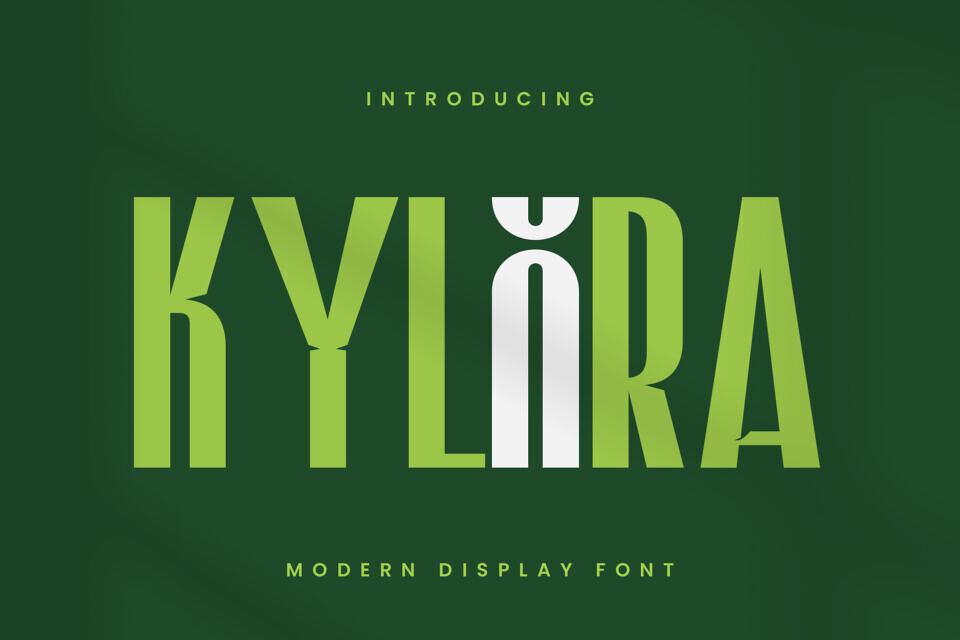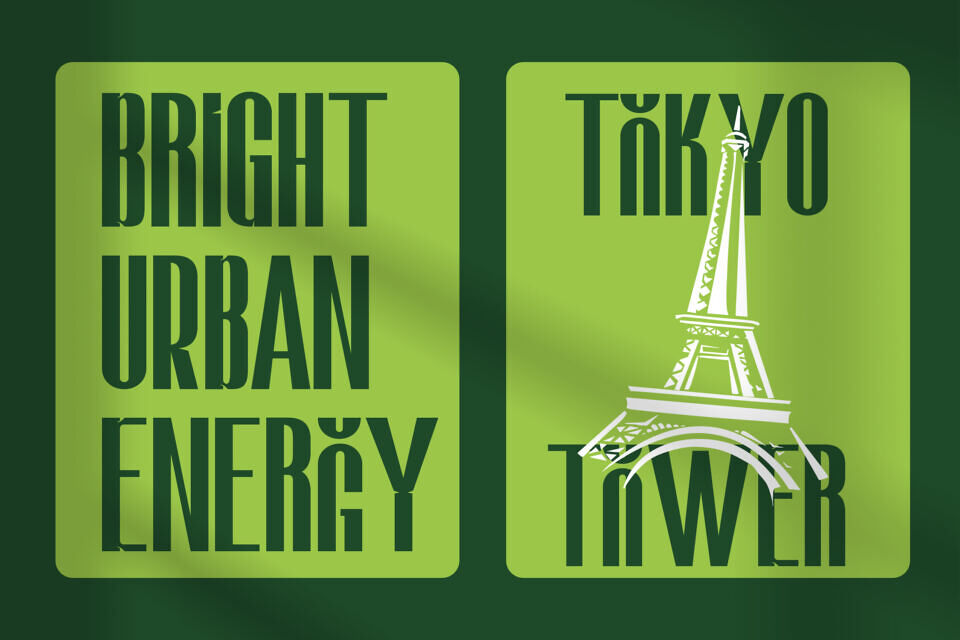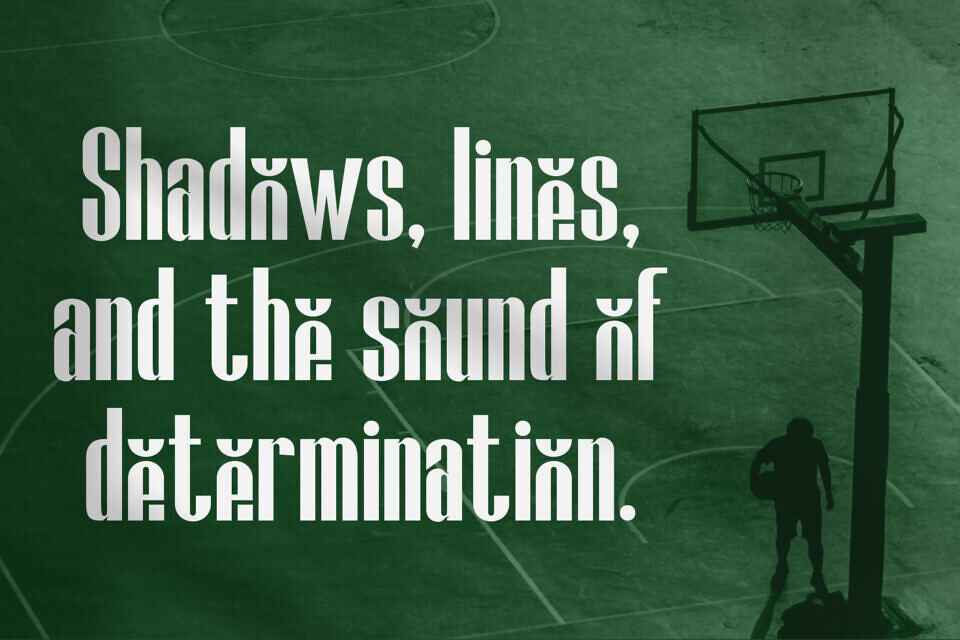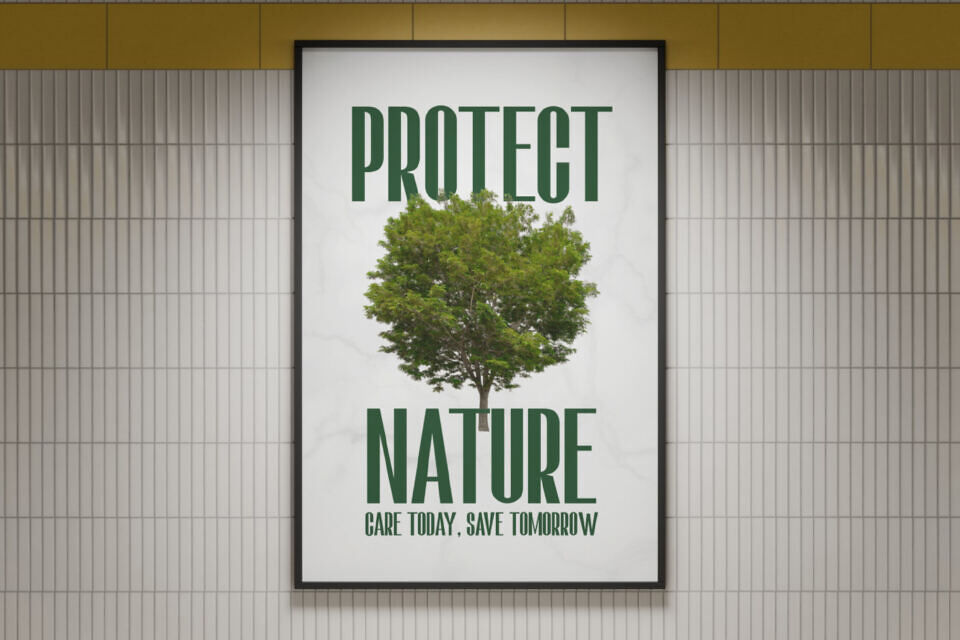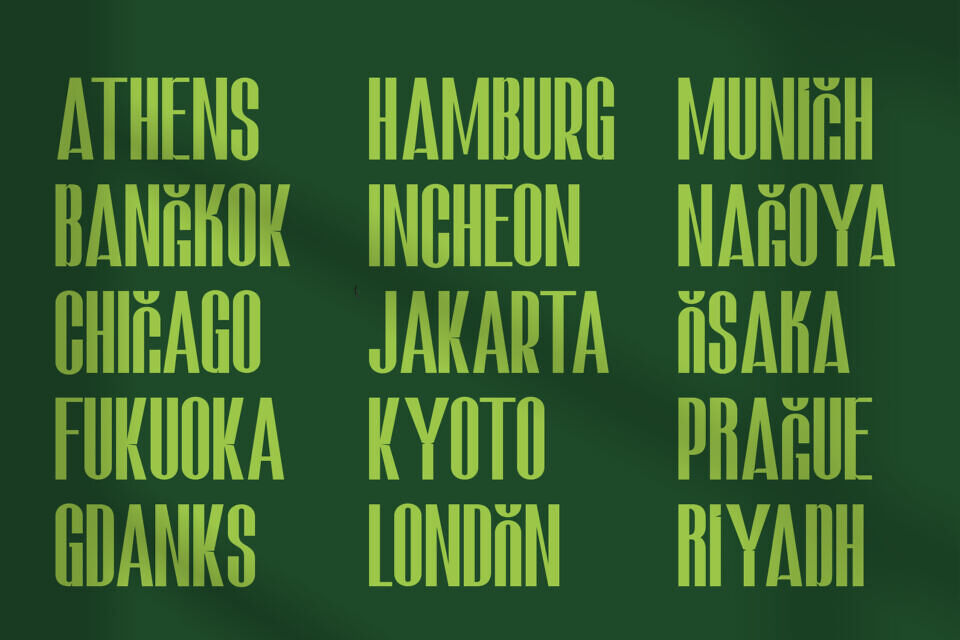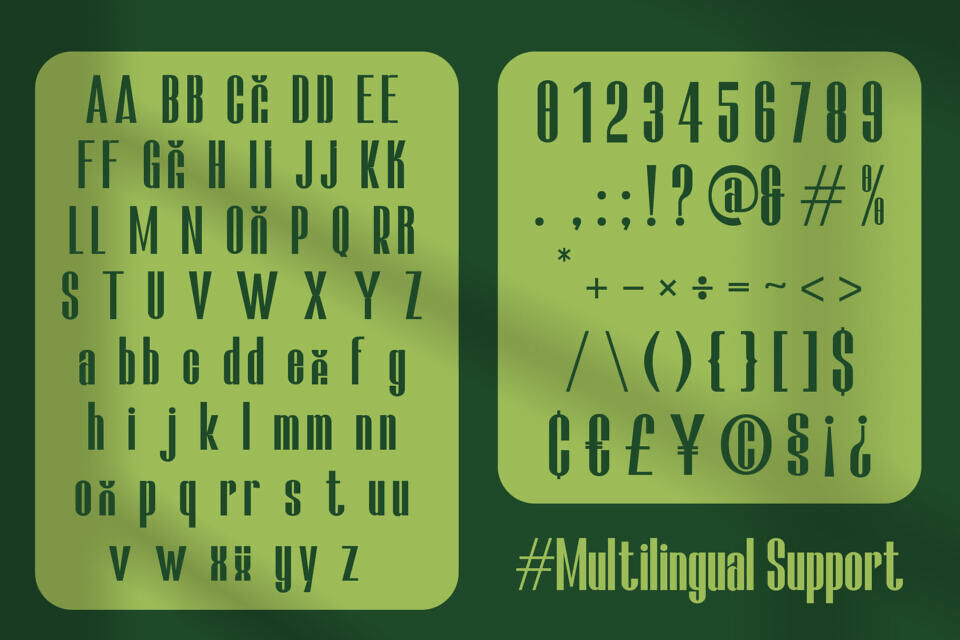
Kylora Font
KYLORA is a bold modern display font crafted with tall proportions, refined geometric shapes, and a distinctive contemporary character. Designed to deliver strong visual impact, KYLORA blends elegance and futurism through its elongated letterforms, sharp curves, and expressive accented glyphs. The result is a typeface that feels sleek, confident, and highly stylish—perfect for designers who want to bring a unique identity to their creative work.
KYLORA works beautifully for titles, headlines, posters, logo design, packaging, magazine layouts, advertising, social media graphics, motion graphics, and any project that requires a strong, contemporary typographic presence.